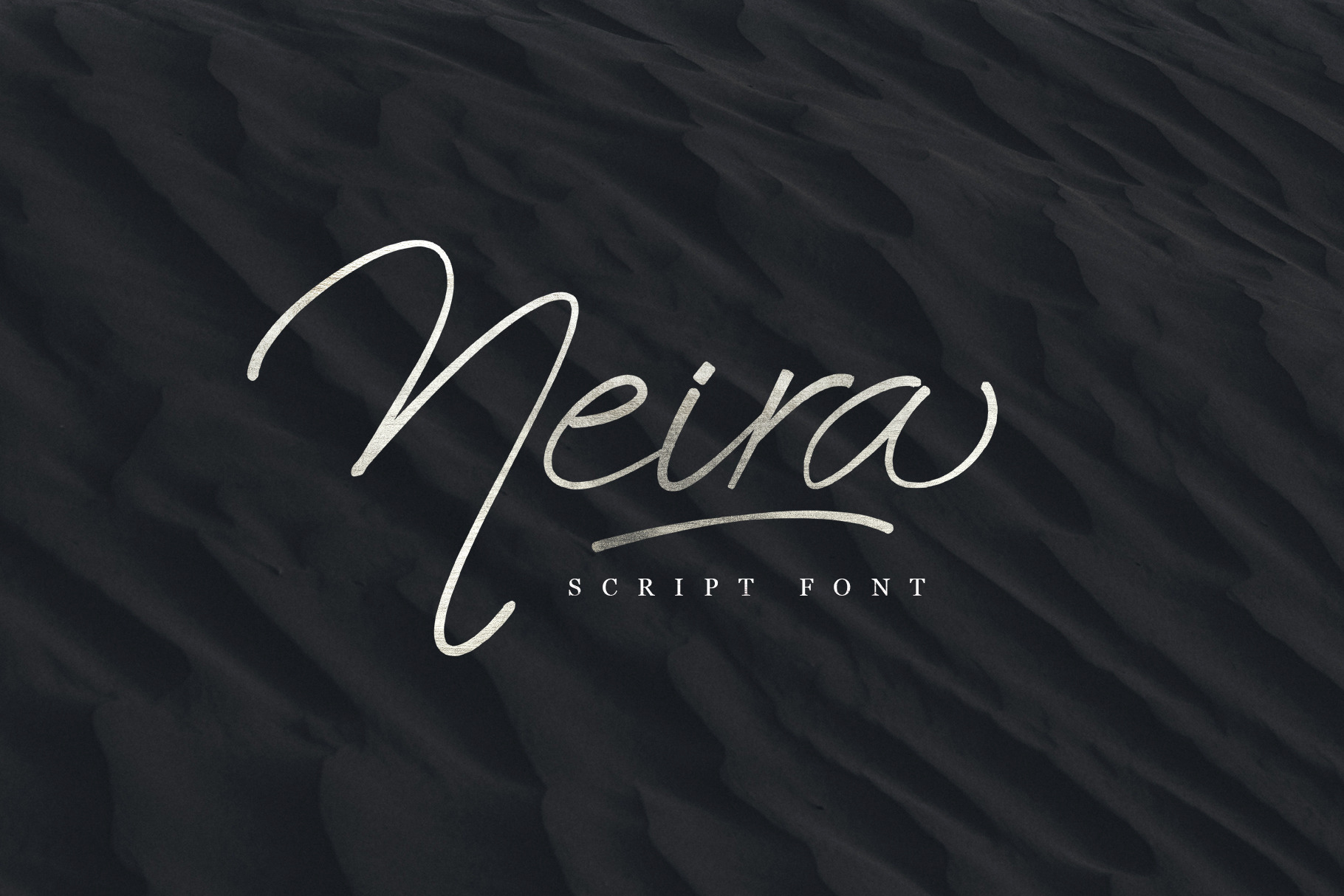
Neira script font
Neira is a lovely script font , this font built with OpenType features and includes swashes, numbers, alternates, ligatures and it also supports other languages .